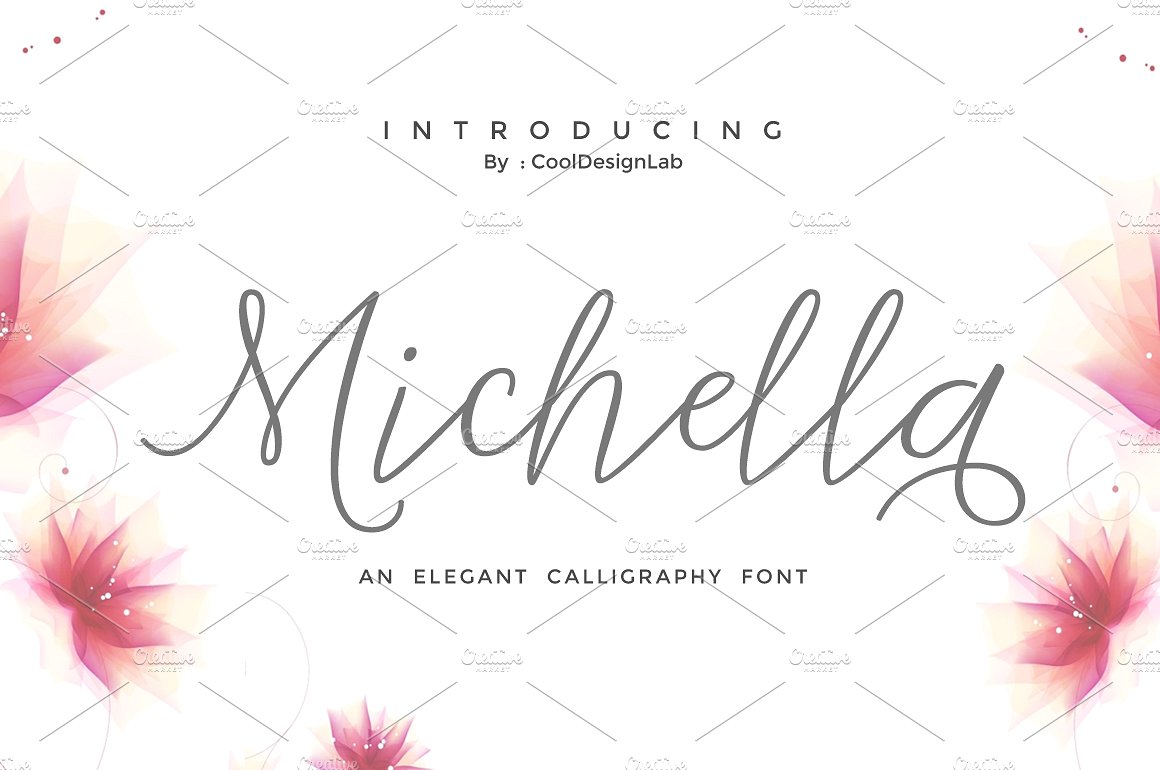
Michella Script Font
“Michella” is a beautiful and interesting calligraphy handwriting font. You can see from scratches that give a realistic and modern style.
“Michella” includes a full set of large and attractive international letters, numbers, punctuation and ligatures. All lowercase letters include the beginning and end of the swashes. Also, follow multilingual symbols.